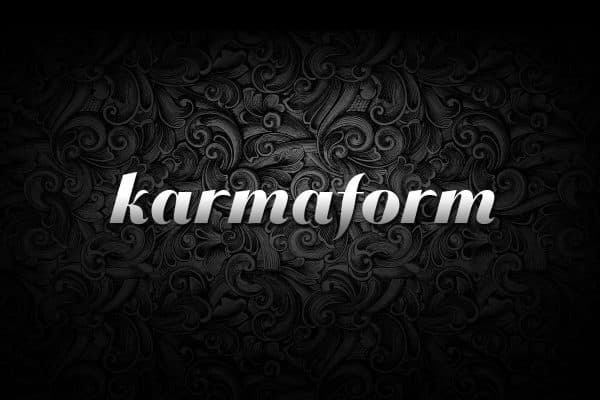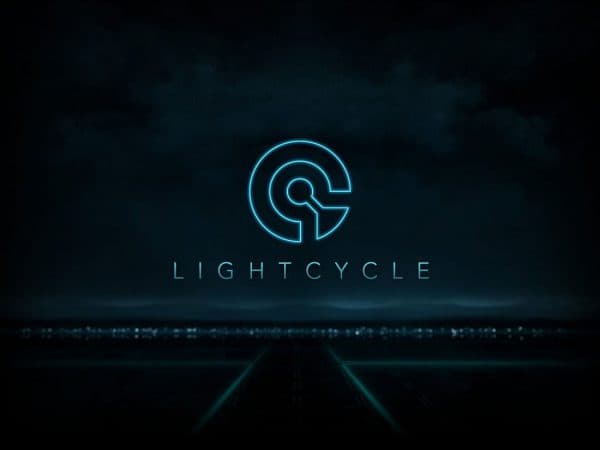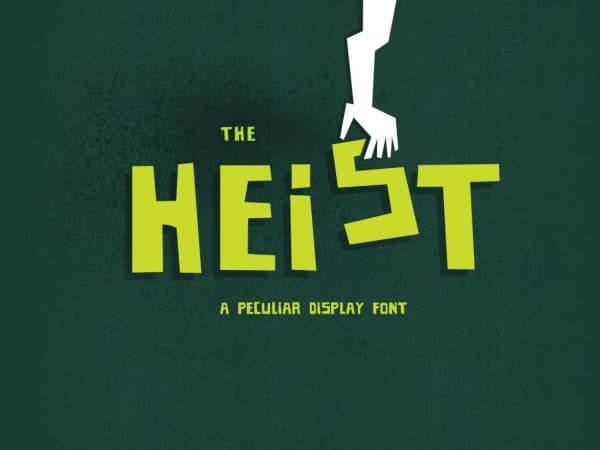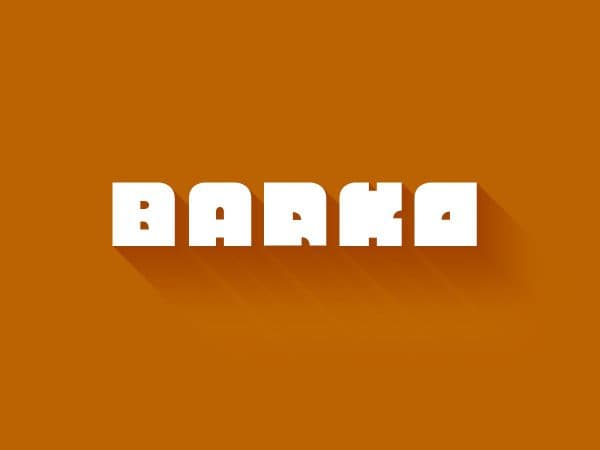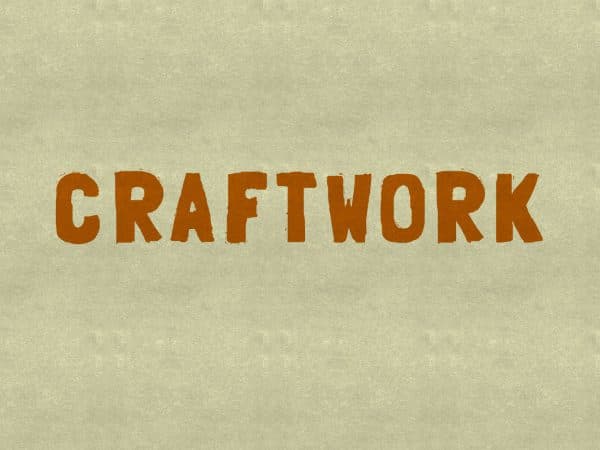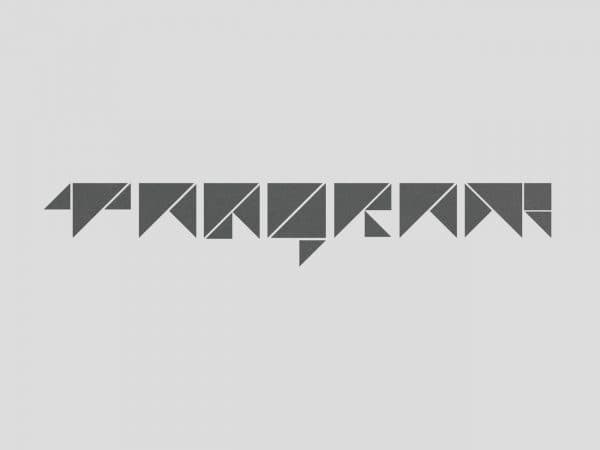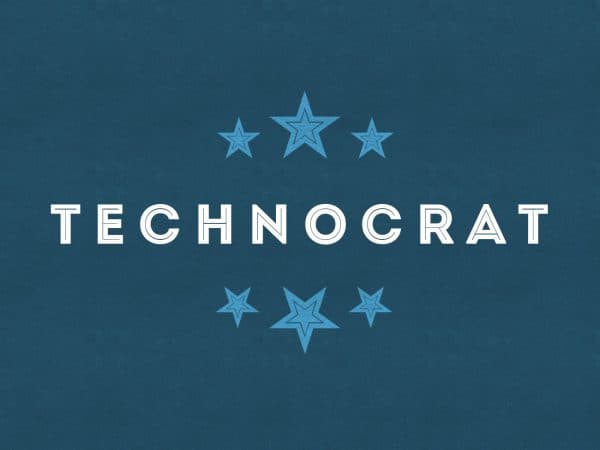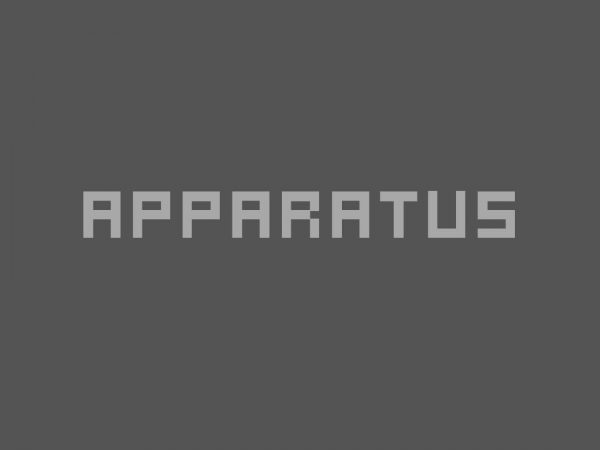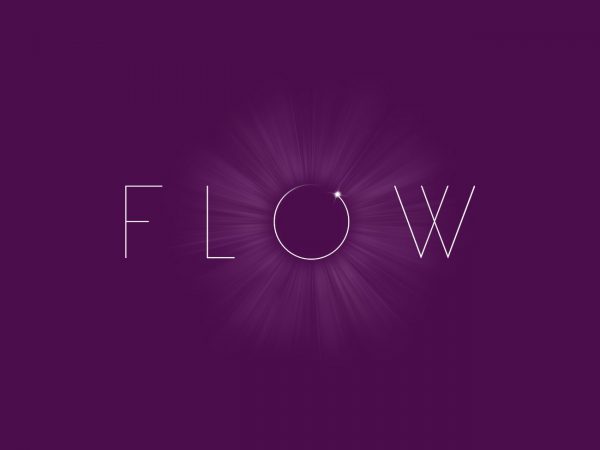
An ever-growing collection of unique & high-quality display fonts of the upmost quality available for free download.
Karmaform
Karmaform is a robust typographic study, inspired from a mix of heavy serifs, curvilinear forms, and voluptuous shapes. This font was initially published during the inaugural Phoenix Design Week in 2009, and has since been acclaimed and noted from creative types as an exciting, and truly unique display font. Available for free download.
Lightcycle is a new typeface that was created for Disney's Tron: Legacy motion picture. This typographic concept is centrally themed around the Light Cycle and Disc designs from the movie. Available for free download.
HEiST is a peculiarly creative display font derived from a combination and inspiration from Saul Bass, and Alfred Hitchcock cinema. Available for free download.
Apparatus is a font based on a modified and modernized version of a pixel-type font from early 1980's computer scripting typeface. Available for free download.
FLOW is a new type study of uppercase letter forms that are elegant, simple, and sexy. It is also an extension of a greater idea of universal patterns, and connectedness with mathematical symmetry. Available for free download.
Barko is a font that is derived from a combination of 80s video game Qbert, and futuristic cartoon The Jetsons. Available for free download.
An organic, country-style font that was initially created for a small farmers market in Georgia. Available for free download.
Typography project that involves the use of an old Chinese dissection puzzle consisting of seven flat shapes, called tans, which are put together to form shapes. The objective of the puzzle is to form a specific shape (given only an outline or silhouette) using all seven pieces, which may not overlap. It is one of the most popular dissection puzzles in the world.